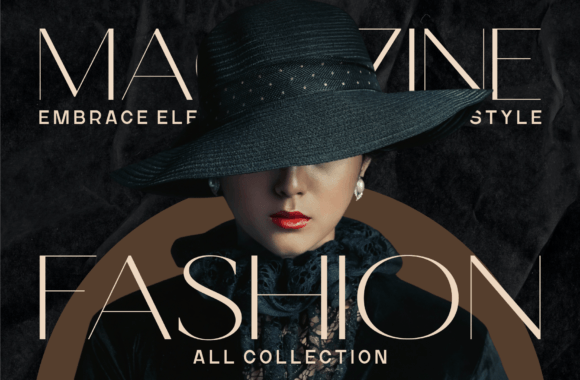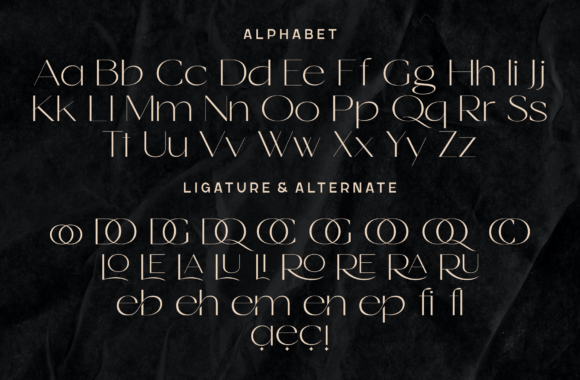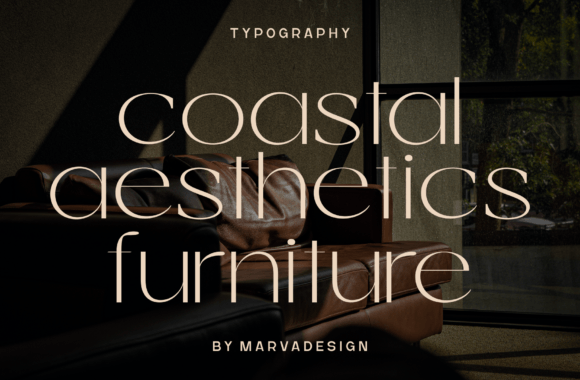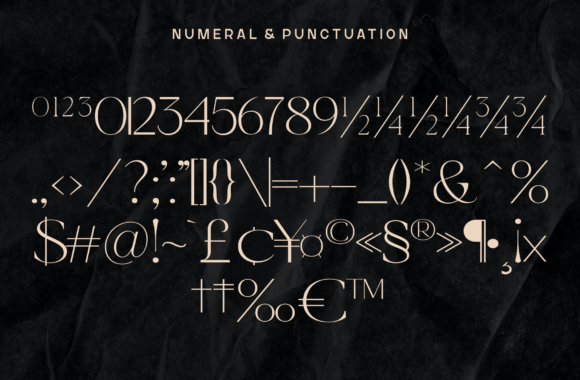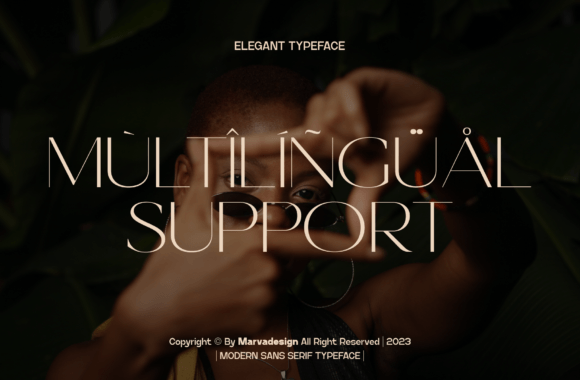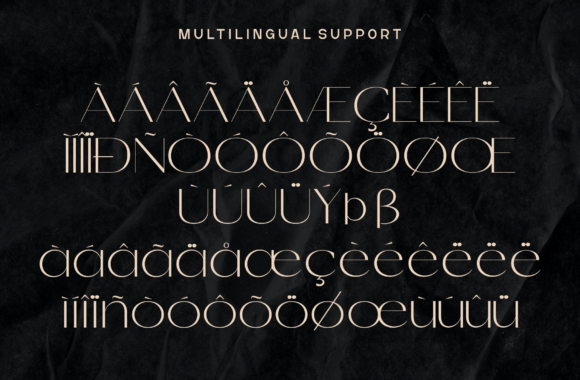
Aura Bella Font: Elevate Your Designs with Elegance and Sophistication
In the world of typography, a font can make or break a design. For designers and crafters seeking to add a touch of class and sophistication to their projects, Aura Bella Font is an exceptional choice. This stunning sans-serif font is designed to bring elegance and refinement to various applications, from logos and branding to more creative endeavors.
The Characteristics of Aura Bella Font
Aura Bella Font boasts an elegant design that sets it apart from other fonts. Its classy and stylish appearance makes it perfect for projects where a sophisticated look is desired. The font’s sans-serif design ensures that it remains easy to read, even at smaller sizes, making it versatile for a wide range of uses.
Key Features of Aura Bella Font
- Elegant Design: Aura Bella’s design is characterized by its clean lines and elegant curves, making it perfect for projects that require a touch of sophistication.
- Easy to Read: Despite its elegant appearance, Aura Bella remains highly legible, making it suitable for body text and headlines alike.
- Versatile: Whether you’re working on a logo, branding materials, or any other project, Aura Bella’s versatility ensures it will fit right in.
- PUA Encoded: Being PUA (Private Use Area) encoded, Aura Bella offers easy access to a wide range of glyphs and ligatures, allowing for even more creative freedom.
Applications of Aura Bella Font
The versatility of Aura Bella Font makes it suitable for a variety of applications. Here are a few ideas to get you started:
- Logos and Branding: Create a lasting impression with a logo that exudes elegance and sophistication. Aura Bella’s unique design ensures your brand stands out.
- Digital and Print Media: From brochures and flyers to website headers and social media graphics, Aura Bella adds a classy touch to any medium.
- Packaging: Elevate your product packaging with a font that communicates luxury and quality.
- Stationery: Add a professional and elegant look to your letters, invoices, and business cards.
Why Choose Aura Bella Font?
Choosing a font for your project can be overwhelming, given the numerous options available. However, Aura Bella Font stands out for several reasons:
- Unique Design: Its elegant and stylish design is sure to set your project apart.
- Readability: Aura Bella strikes the perfect balance between style and readability.
- Flexibility: Suitable for a wide range of projects, from digital applications to print materials.
- Glyphs and Ligatures: With PUA encoding, you have access to a variety of glyphs and ligatures, allowing for highly customized designs.
Aura Bella Font is a versatile and elegant sans-serif font that can elevate any project with its sophisticated design. Whether you’re a designer looking for a stylish font for a client’s branding or a crafter seeking to add a touch of elegance to your creations, Aura Bella is an excellent choice. Its readability, versatility, and the ease of access to glyphs and ligatures through PUA encoding make it a valuable addition to any design toolkit.